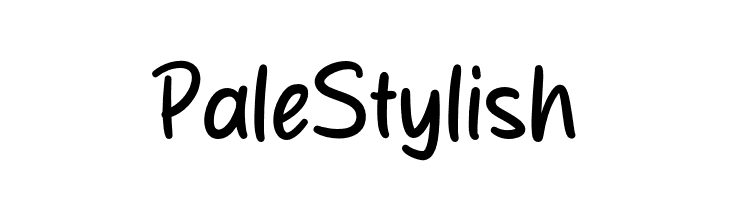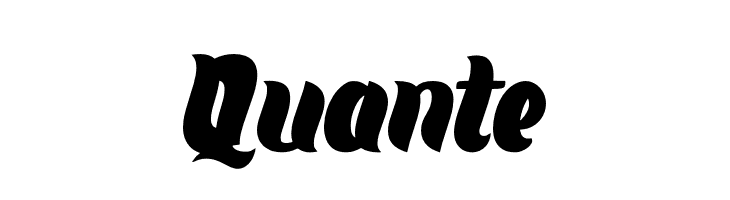
A bold, dynamic script font with flowing, energetic strokes.
An elegant and flowing script font with graceful curves and sophisticated flair.
A playful, hand-drawn font with tall, narrow letters and a whimsical style.
Elegant swashes with smooth curves for decorative use.
A textured, brush-style font with a chalk-like appearance and dynamic, hand-drawn feel.
A bold, geometric font with a futuristic and modern design.
A futuristic, geometric font with bold, angular letterforms.
A playful, casual handwritten font with smooth, flowing script.
A bold, pixelated font with a retro video game aesthetic.
A sleek, modern, and condensed italic font with thin lines.